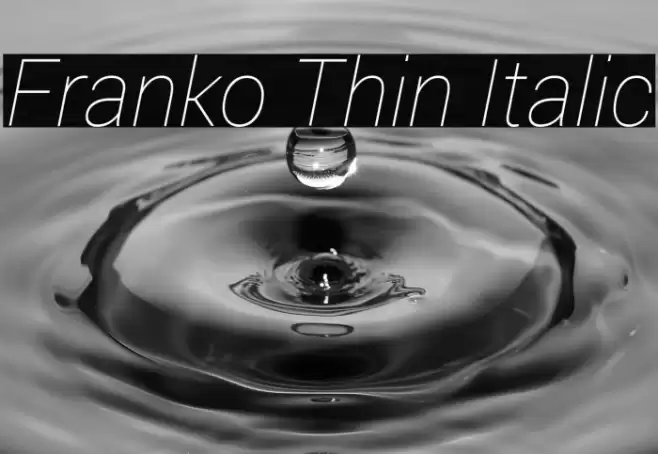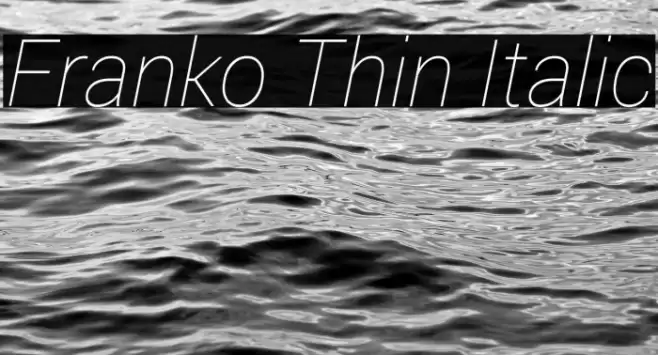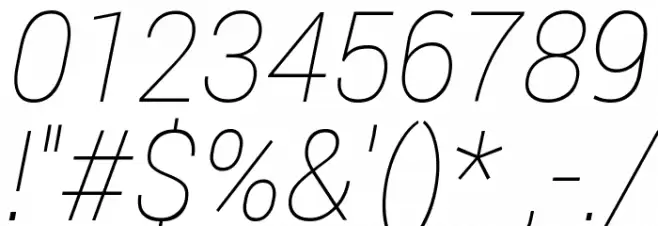
Franko Thin Italic Font
Franko Thin Italic Description
This font exhibits a sleek and modern aesthetic with its thin, elongated letterforms. The italic style adds a dynamic and elegant touch, making it suitable for contemporary designs. Each character is crafted with precision, featuring clean lines and a minimalist approach. The uppercase and lowercase letters maintain a consistent flow, while the numerals and special characters are designed to complement the overall style. This font's refined appearance is ideal for projects that require a sophisticated and understated look.
A sleek, modern, and thin italic font with a minimalist design from Sans Serif fonts.